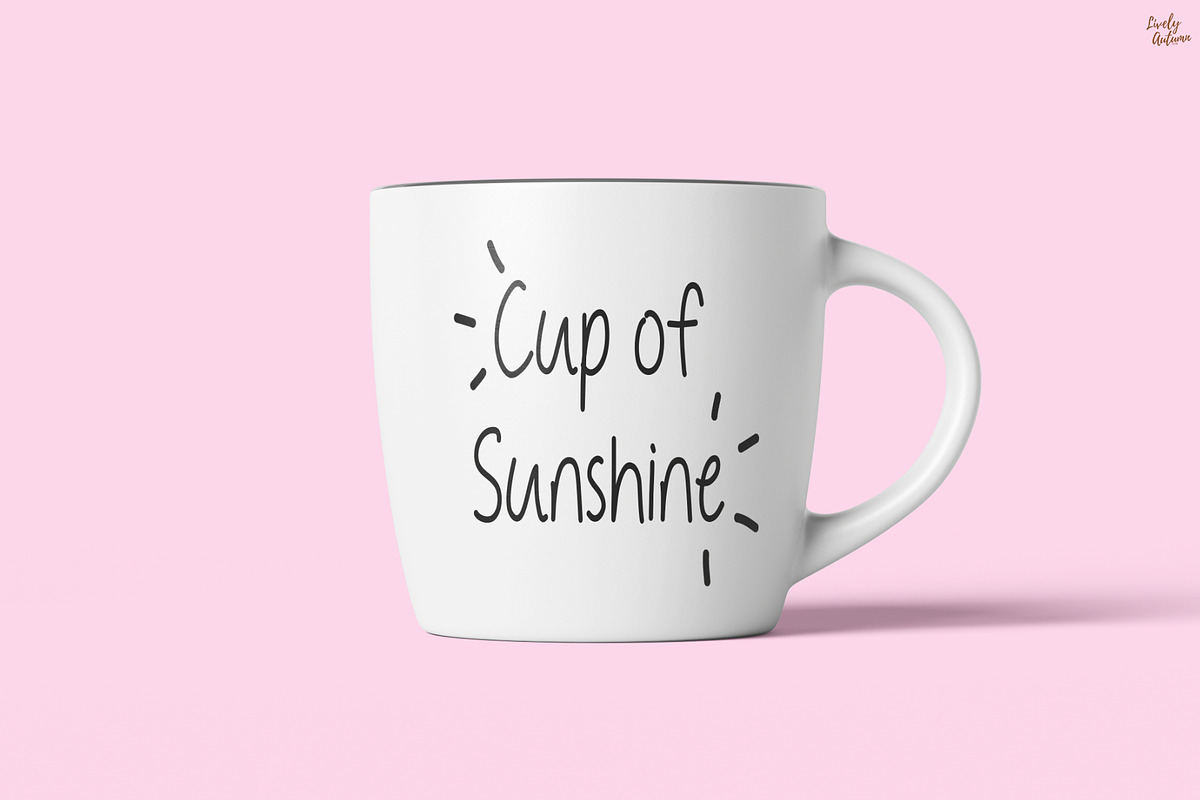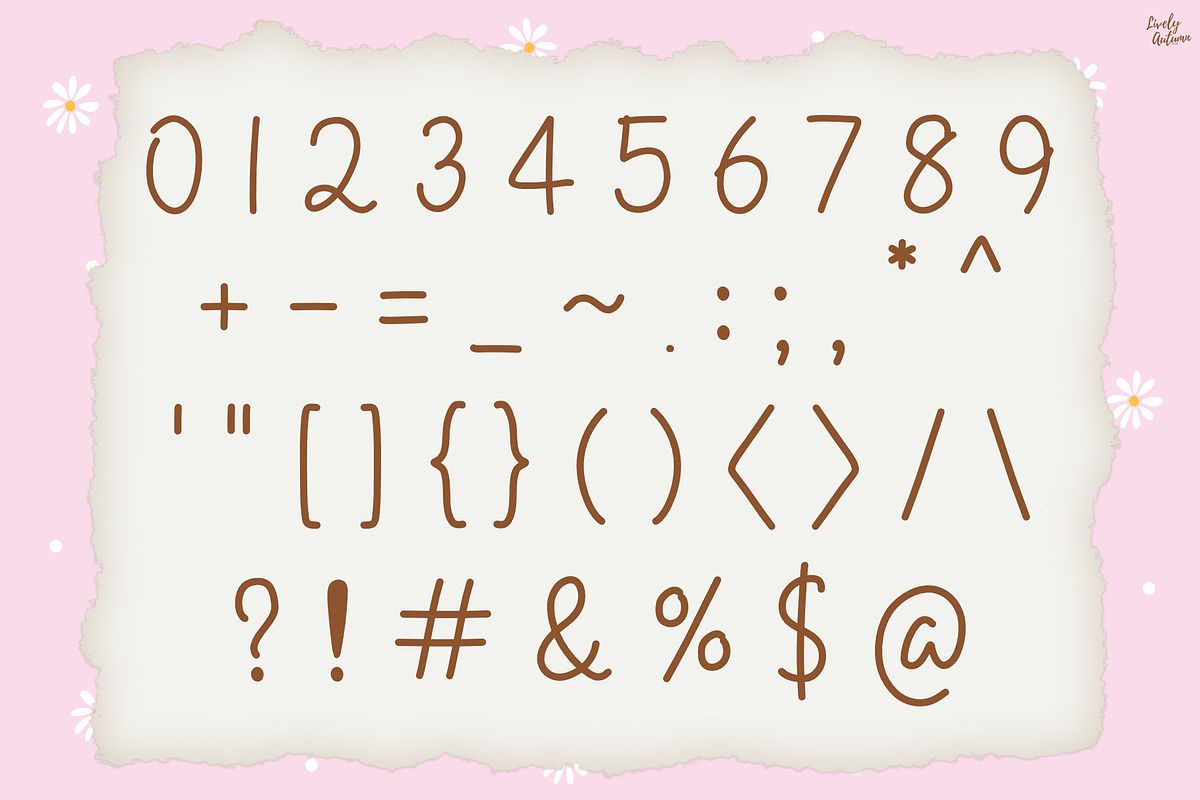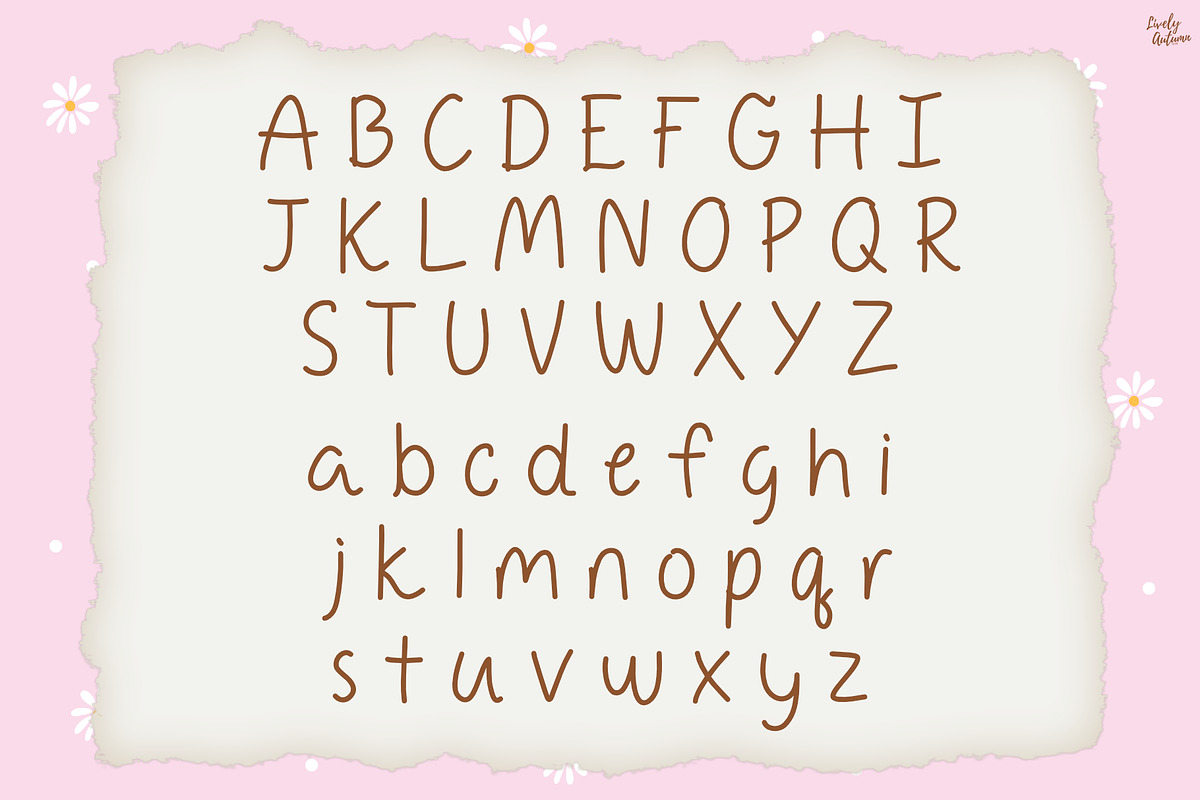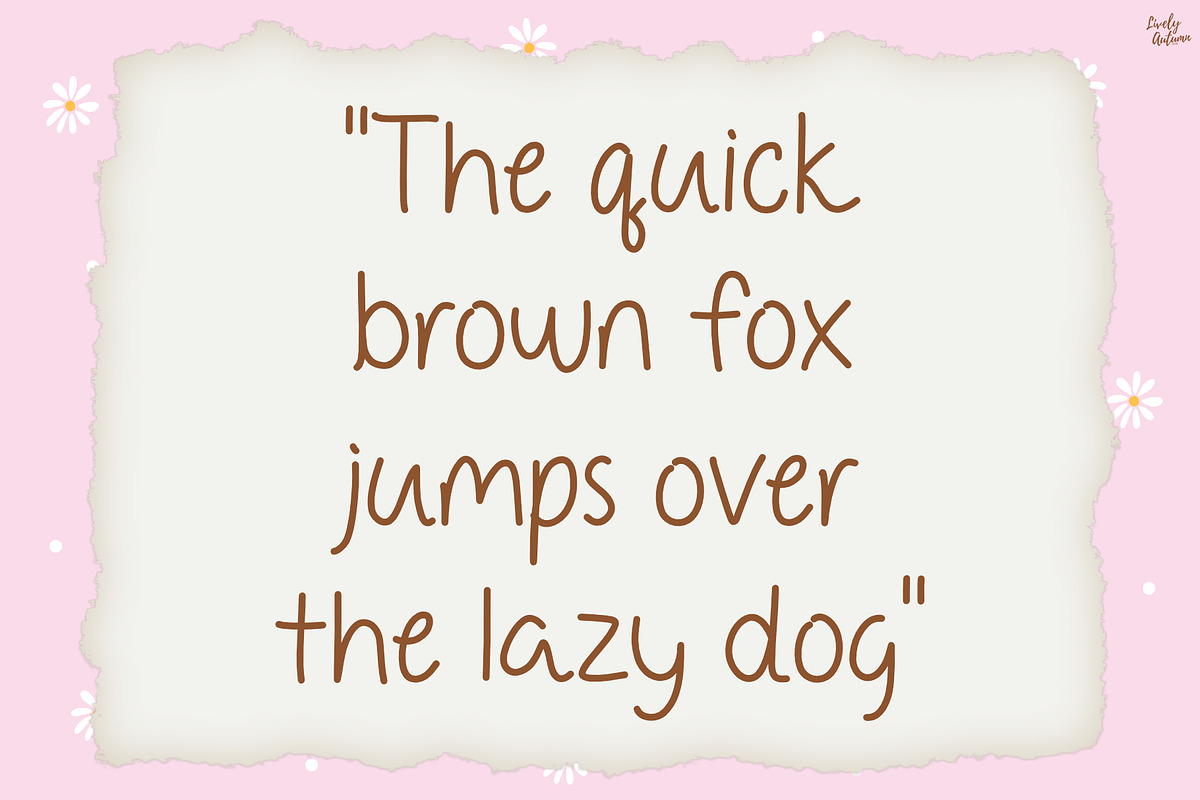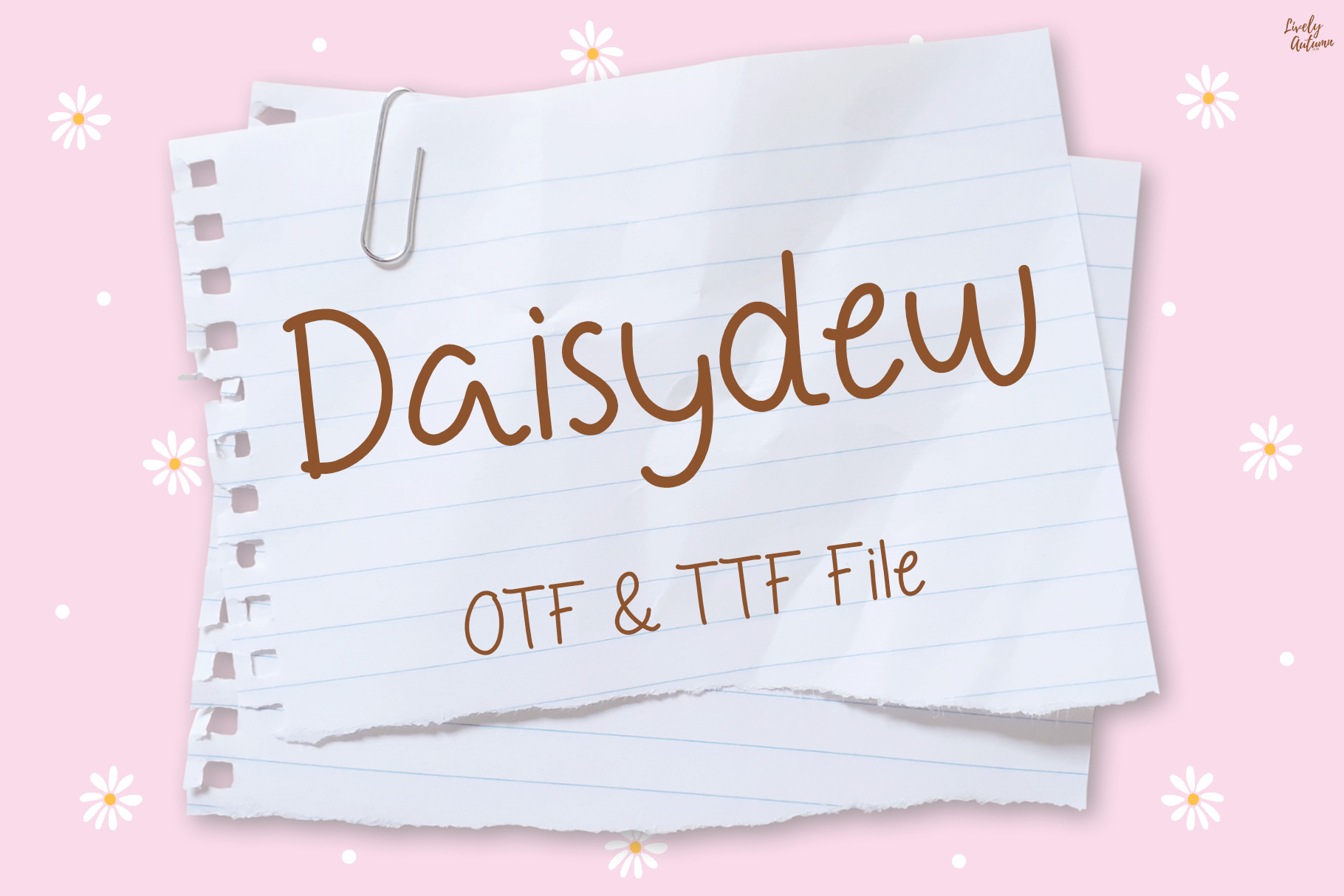
Daisydew | handwritten font
Daisydew Font is a playful and cute handwritten font. Perfect for your personal projects and various projects. From invitations to posters, social media graphics, journals, stickers and much more.